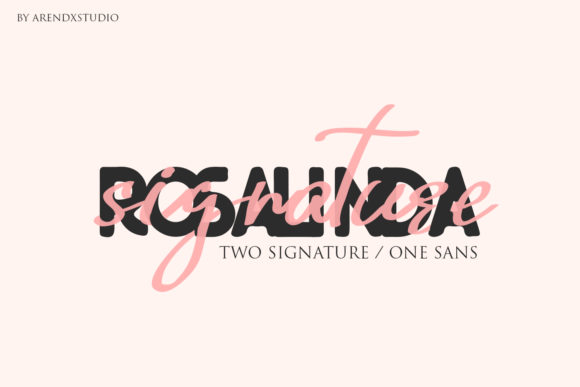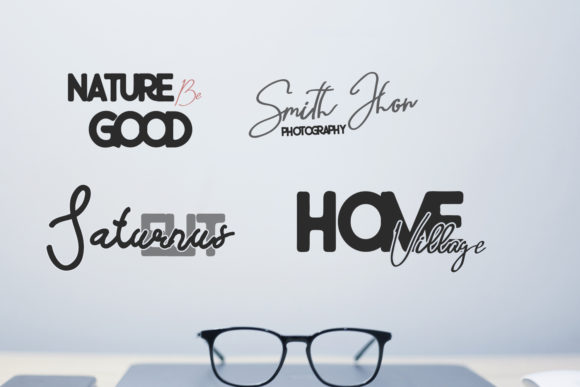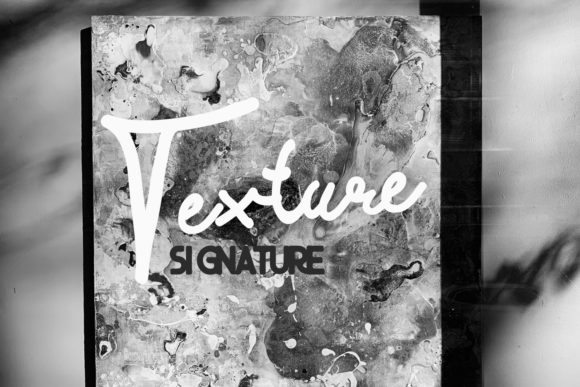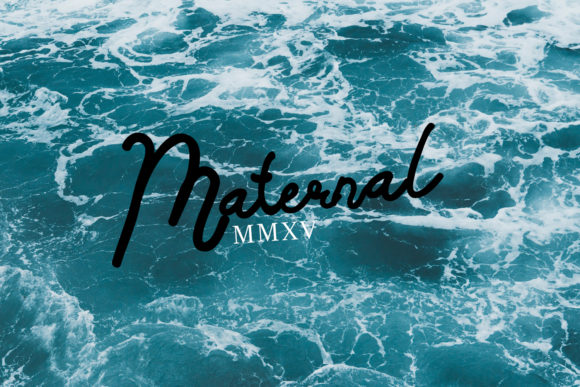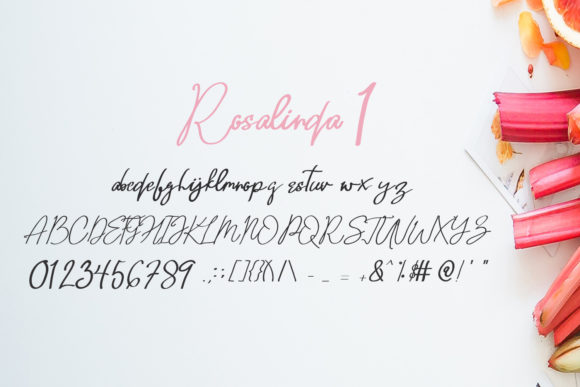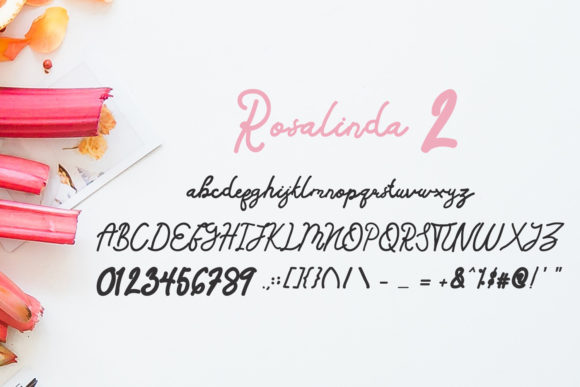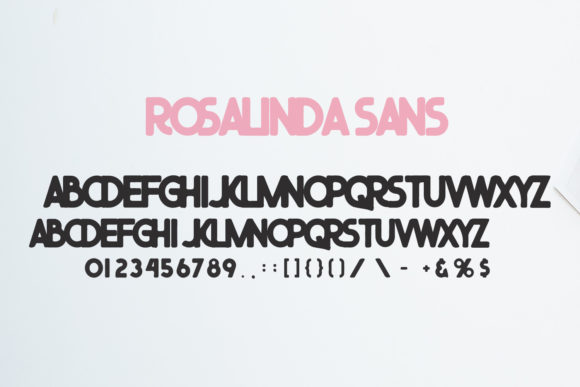
Rosalinda Trio Font
About Rosalinda Trio Font
Rosalinda is a beautiful font trio. It’s wonderfully versatile, and will add a beautiful touch to a big variety of design project!